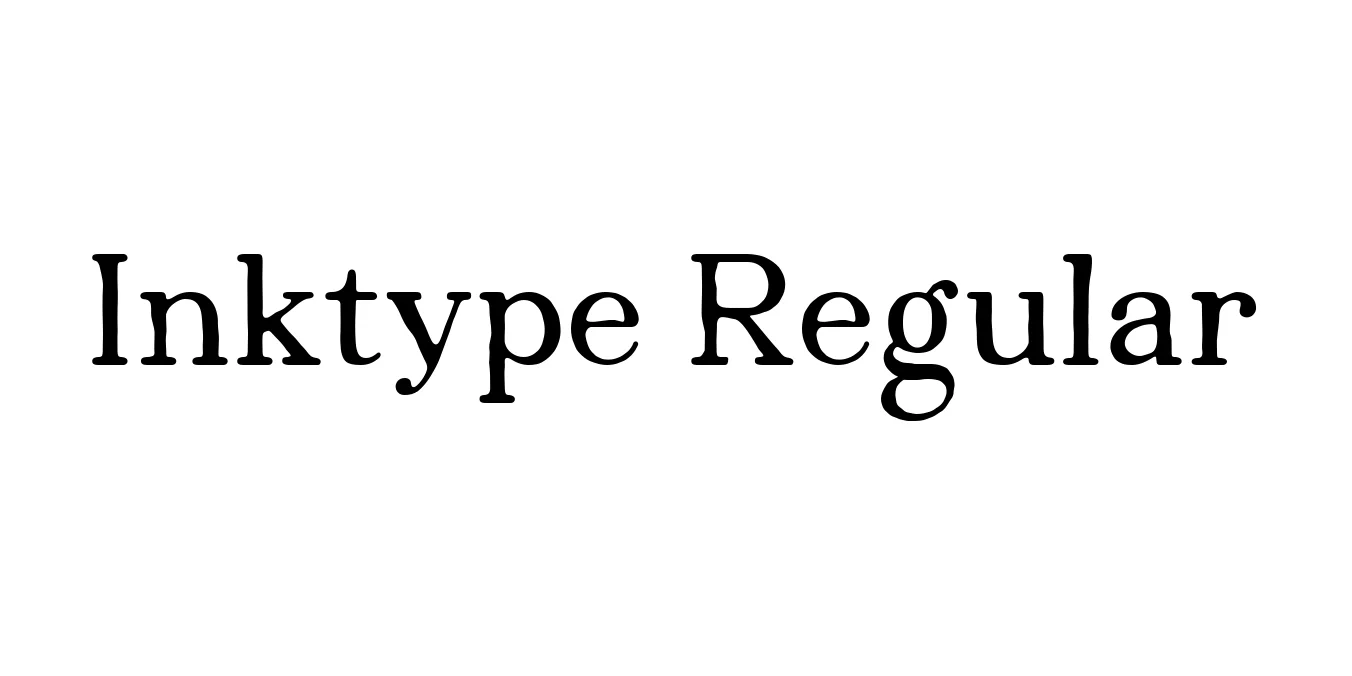
Inktype Regular
Designed by Creative Lab
| Font Name | Inktype |
| Category | Handwritten / Display |
| Designer | Creative Lab |
Inktype Regular is a distinctive display typeface that draws heavy inspiration from the traditional aesthetic of manual ink-stamping and vintage typewriter mechanics. Its design philosophy centers on capturing the 'human element'—the slight bleeding of ink and the irregular pressure applied during the physical printing process. This results in a font that feels grounded, nostalgic, and deeply personal, making it a favorite for designers looking to break away from clinical digital perfection.
The typeface features rugged edges and textured strokes that give it an authentic, weathered appearance. Each character is crafted to maintain readability while emphasizing its distressed nature. It is particularly effective when used at larger scales, where its intricate textural details can truly shine, providing a rustic charm to various creative projects including retro-themed advertisements and artisanal packaging designs.
Inktype Regular Best Uses
Perfect for creating logos for artisan, heritage, or handmade brands.
Ideal for eye-catching event titles and high-impact graphic flyers.
Excellent for quote graphics that require a gritty or nostalgic feel.
Adds an organic and authentic touch to product labels and boxes.